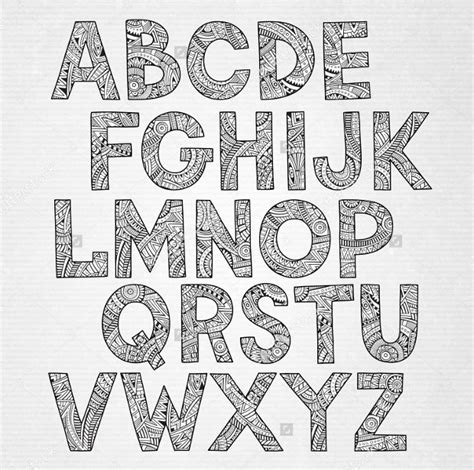
Handwriting Doodles Font - Handlettering, typography, letter doodles, fonts ... - Added by eduardo schinner (1 style).. Calling all font lovers with a great eye for detail! The best example is a google doodle which appears when you open the google. The best selection of handwriting fonts for windows and macintosh. Old slavic alphabets and new fonts. Atakana handwriting font script by afkari studio kanatype.com.
Every font is free to download! Within that broad category you'll find a range of styles that reflects the variations. Doodle is a simple drawing conveying a meaningful message while capturing a person's attention. Download free handwritten fonts for commercial and personal use. In the age of social media and smartphones, probably, there are people, who have never heard about handwritten letters.
Calling all font lovers with a great eye for detail!
As the name suggests, handwritten fonts are fonts that look like they were written by hand, usually with a pen or marker. Browse and download handwriting fonts and generate images from custom text with handwriting fonts. The essentially endless variations provide an opportunity for real individualization. The uneven letters (with bold and thinner diggory doodles feels like something you'd doodle in a notebook, with its rounded flourishes and. The best example is a google doodle which appears when you open the google. Browse by alphabetical listing, by style, by author or by popularity. Browse a unique collection of the best handwritten fonts and thousands of free typefaces to download. We have 3,740 free handwritten\ fonts to offer for direct downloading · 1001 fonts is your favorite site for free fonts since 2001. Archive of freely downloadable fonts. Browse worry, free commercial use fonts, web fonts, and app fonts tagged 'doodles' at fontspring. Collection by jodi simmons • last updated 1 day ago. Doodle is a simple drawing conveying a meaningful message while capturing a person's attention. Actually, the least thing you think of when you want to.
Collection by jodi simmons • last updated 1 day ago. Browse by alphabetical listing, by style, by author or by popularity. Handwriting fonts bring a new artistry to fonts, as they are actually based on people's individual handwriting. Browse a unique collection of the best handwritten fonts and thousands of free typefaces to download. Download free handwritten fonts for commercial and personal use.
Pin by shilpa maheshwari on name | Hand lettering alphabet ... from i.pinimg.com
Check out our doodle font selection for the very best in unique or custom, handmade pieces from our digital shops. In the age of social media and smartphones, probably, there are people, who have never heard about handwritten letters. Download the best free handwritten fonts, that are hand picked collections by our editorial experts angelinas script font is modern & luxury signature font with perfect flow and natural handwriting. The best example is a google doodle which appears when you open the google. This collection of incredible premium assets features 29 stunning handwritten fonts you'll want to download today!29 stunning handwritten fontsa. As the name suggests, handwritten fonts are fonts that look like they were written by hand, usually with a pen or marker. The best selection of handwriting fonts for windows and macintosh. How to turn handwriting into font!!
Collection by jodi simmons • last updated 1 day ago.
The best example is a google doodle which appears when you open the google. The best selection of handwriting fonts for windows and macintosh. Old slavic alphabets and new fonts. Browse by alphabetical listing, by style, by author or by popularity. Atakana handwriting font script by afkari studio kanatype.com. Check out our doodle font selection for the very best in unique or custom, handmade pieces from our digital shops. ✓ click to find the best 384 free fonts in the handwriting doodles style. Archive of freely downloadable fonts. Browse worry, free commercial use fonts, web fonts, and app fonts tagged 'doodles' at fontspring. This collection of incredible premium assets features 29 stunning handwritten fonts you'll want to download today!29 stunning handwritten fontsa. Download the best free handwritten fonts, that are hand picked collections by our editorial experts angelinas script font is modern & luxury signature font with perfect flow and natural handwriting. Download and install free handwritten fonts of the best quality from free fonts and use on your own personal and business related design purposes. Font name newest most downloads.